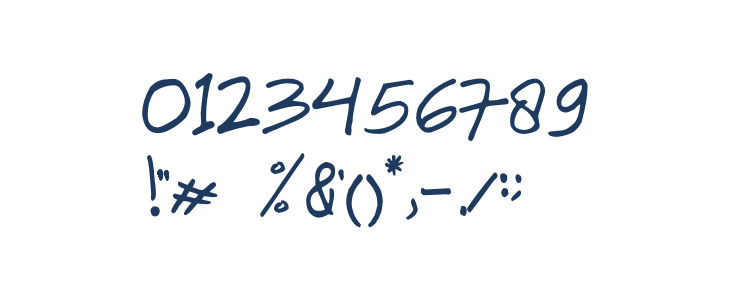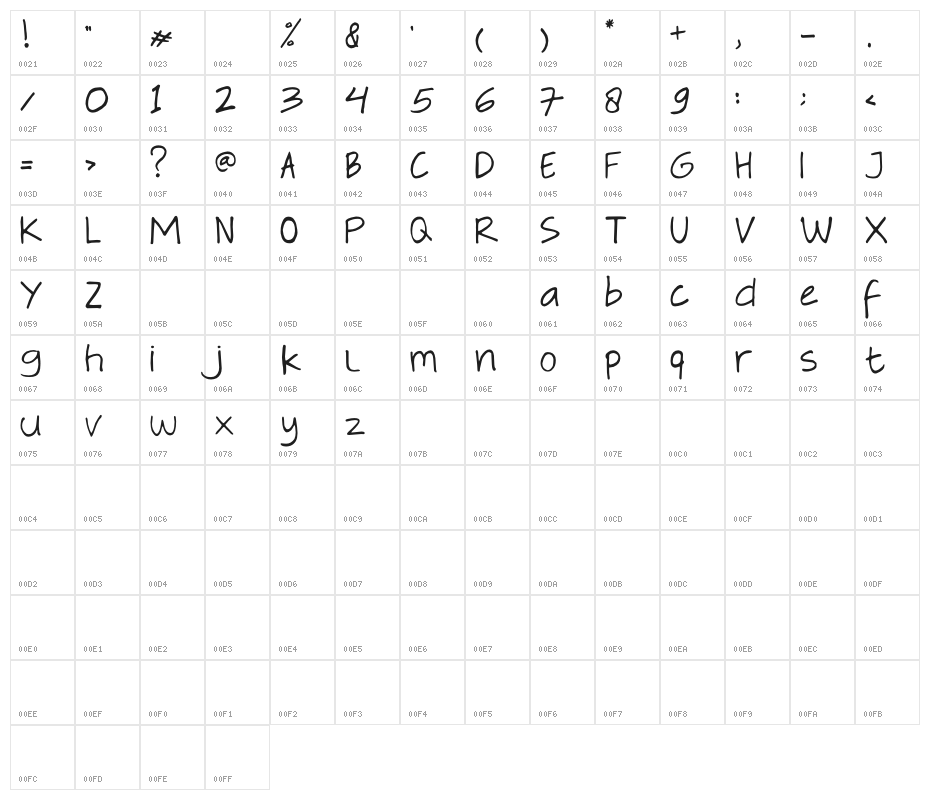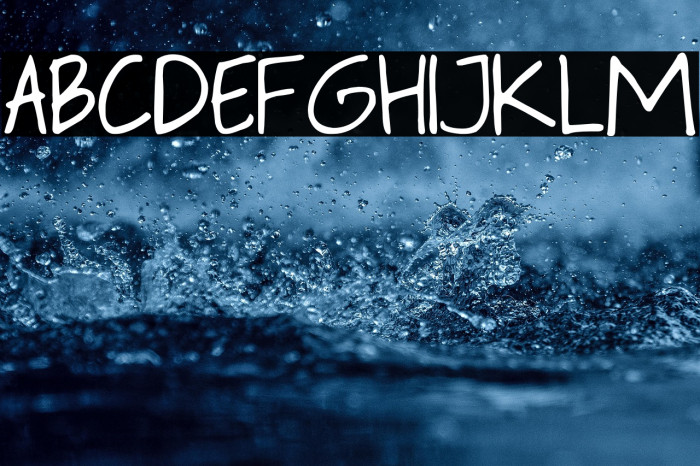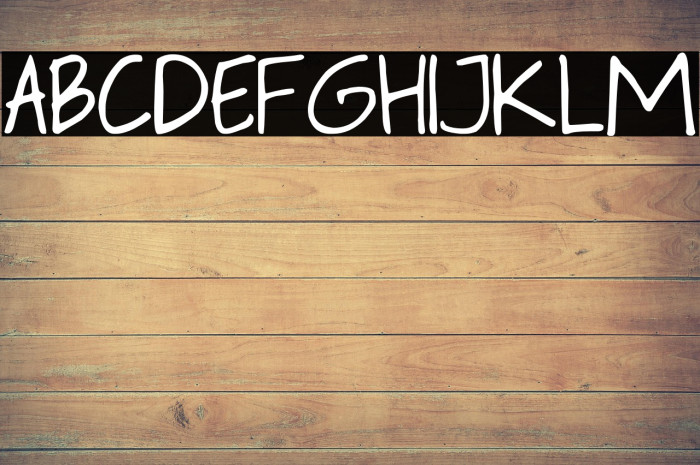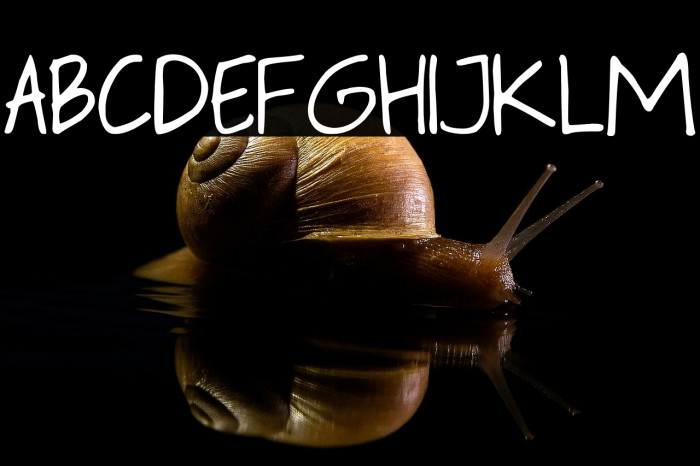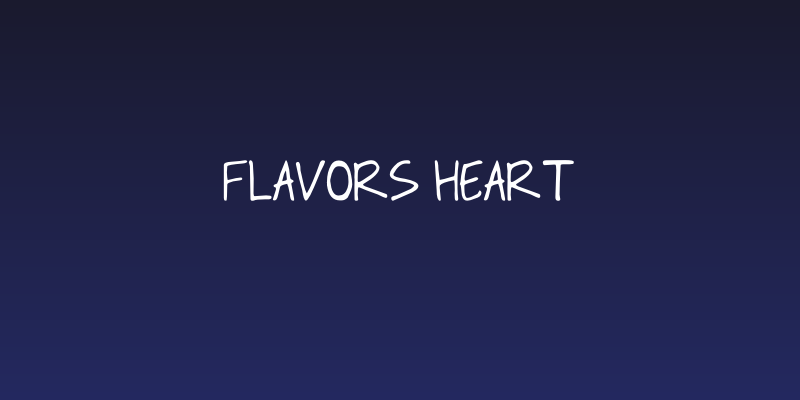
Flavors Heart Font
Flavors Heart Description
This font features a playful and casual handwritten style, characterized by its smooth, flowing lines and slightly irregular shapes. The letters have a natural, organic feel, with rounded edges and a consistent stroke width that gives it a friendly and approachable appearance. The uppercase and lowercase letters maintain a cohesive look, while the numerals and special characters blend seamlessly with the overall design. This font's informal style makes it ideal for projects that require a personal touch, such as greeting cards, invitations, or playful branding materials.
| Proposed Projects | Ideal for greeting cards, invitations, playful branding, and personal projects. |